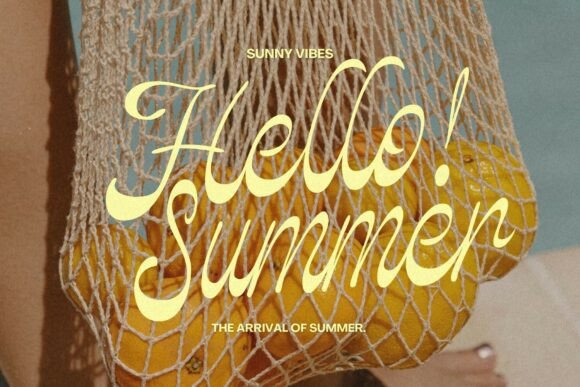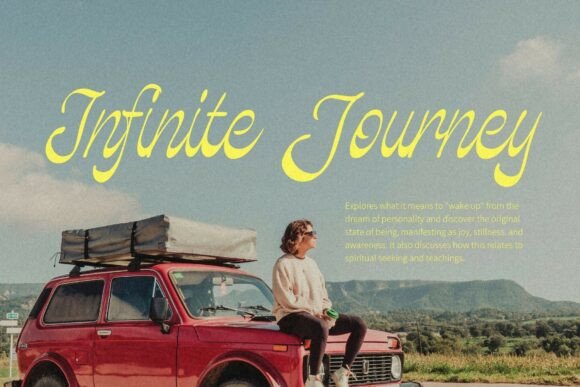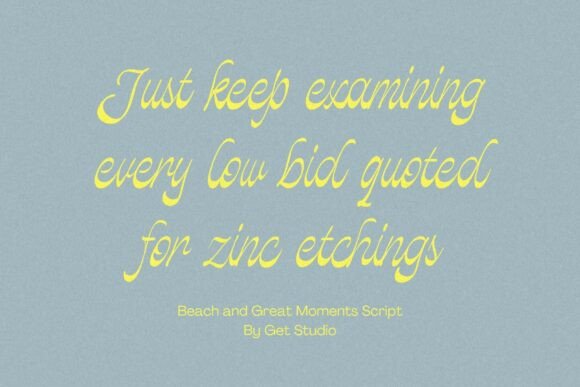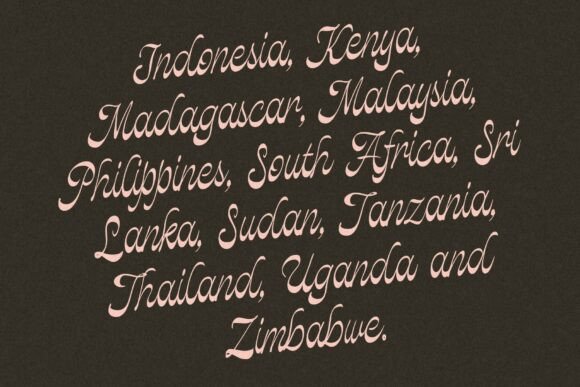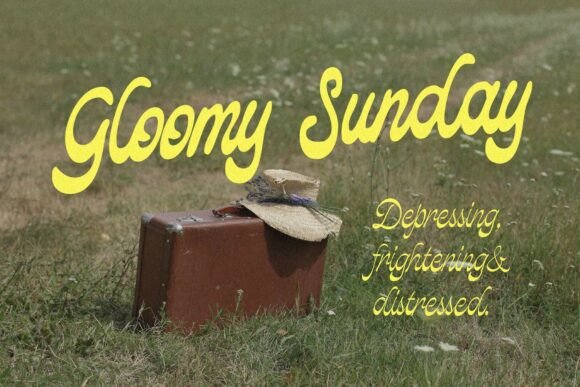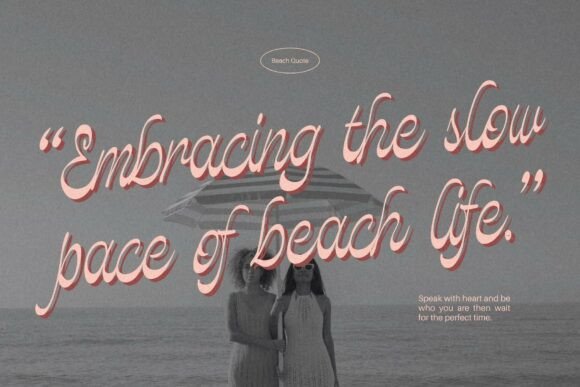
Introduction to Beach and Great Moments Font
Beach and Great Moments is a nostalgic script font that brings the essence of summer to your designs.
With smooth curves and an elegant handwritten flow, this typeface captures the relaxed, joyful spirit of beach days and unforgettable memories It’s perfect for branding, travel-inspired projects, social media graphics, packaging, and editorial layouts that call for a vintage charm with a modern touch.
Key Features of Beach and Great Moments Font
Why Choose Beach and Great Moments Font?